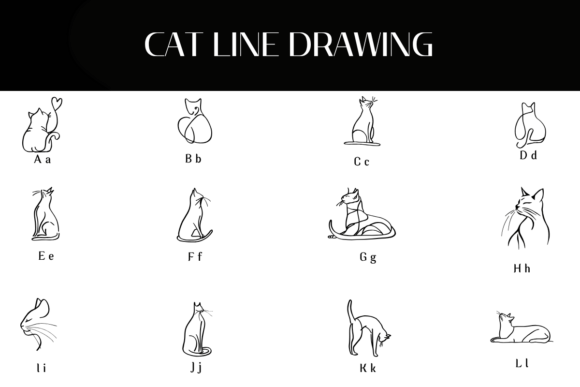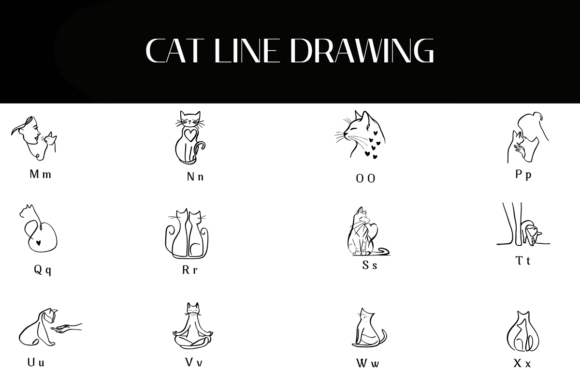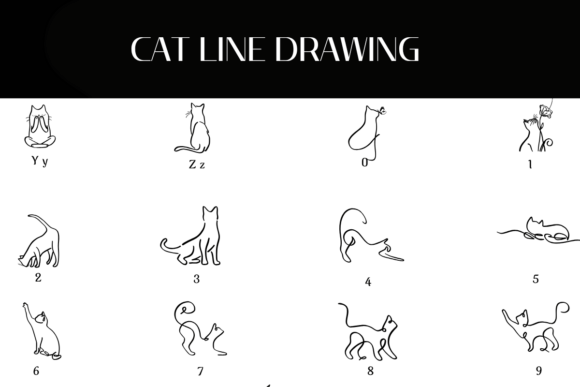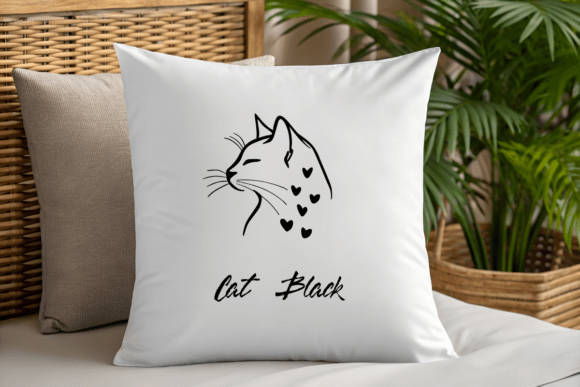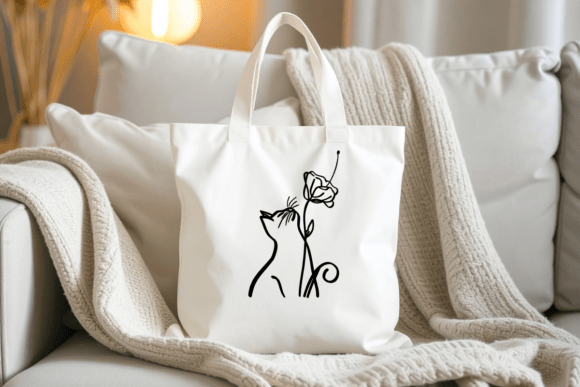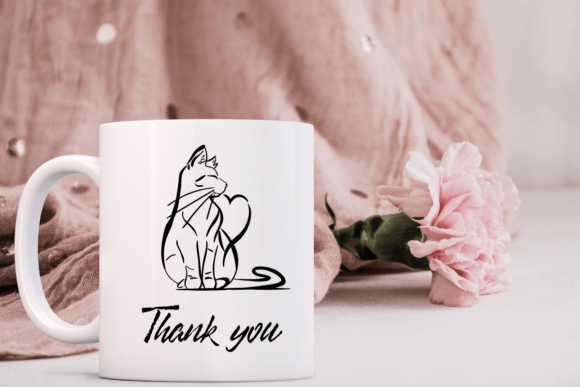
The Purrfect Font: A Deep Dive into Cat Line Drawing
I’ll never forget the time I was working on a feline-themed project for a client, and I just couldn’t find the right font to match the cute and playful vibe I was going for. The client wanted something that would make their cat lovers’ hearts melt, but my usual go-to fonts just weren’t cutting it. That’s when I stumbled upon Cat Line Drawing, a charming dingbats font that completely transformed my design. In this article, I’ll share my love for this font, its features, and how to make the most of it in your projects.
- ✨ The adorable cat illustrations that make any project instantly cute
- ✅ Easy to use and navigate, even for those new to dingbats fonts
- 💕 Perfect for feline-themed projects, from invitations to social media graphics
- 🎨 Versatile and can be used in a variety of design contexts, from digital to print
While Cat Line Drawing is an amazing font, there are a few things to keep in mind:
- 🤔 Some characters may not work well in very small sizes, so it’s best to use it at larger sizes (14pt or higher)
- ⚠️ The font may not be suitable for very formal or professional projects, as it’s quite playful and whimsical
The Designer Inspiration Behind Cat Line Drawing
According to the font’s creator, Cat Line Drawing was inspired by a passion for cats and a love for simple, elegant design. The designer wanted to create a font that would bring a touch of whimsy and playfulness to any project, while still being versatile and easy to use.
A: Cat Line Drawing is perfect for feline-themed projects, such as cat cafe branding, pet store promotions, or even just cute cat social media graphics.
A: As a dingbats font, Cat Line Drawing may not have full language support. However, it’s perfect for projects that don’t require extensive text, such as logos, icons, or graphics.